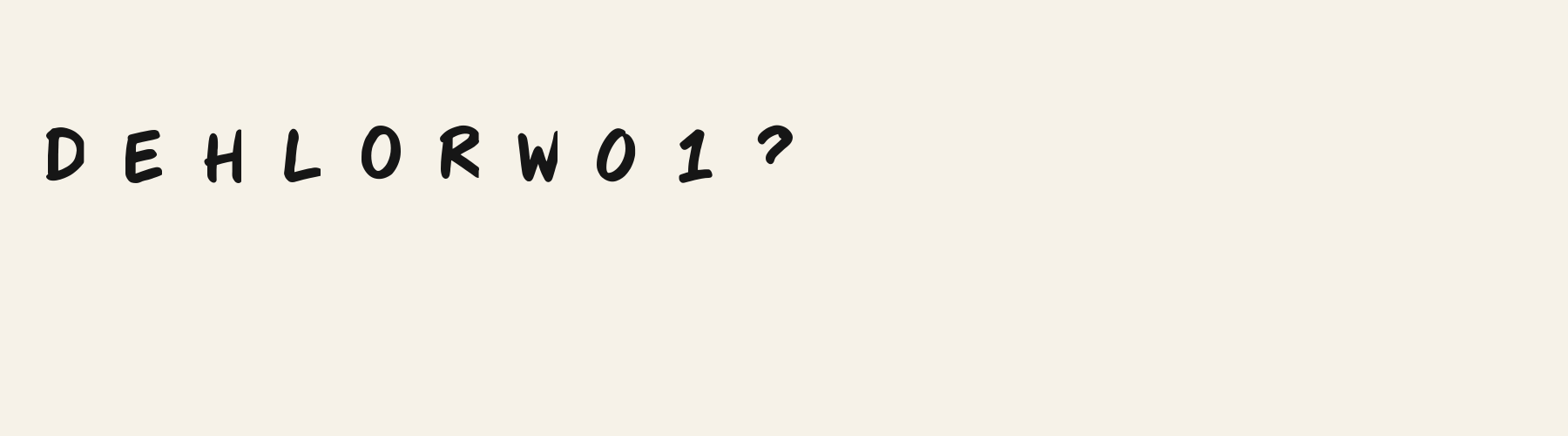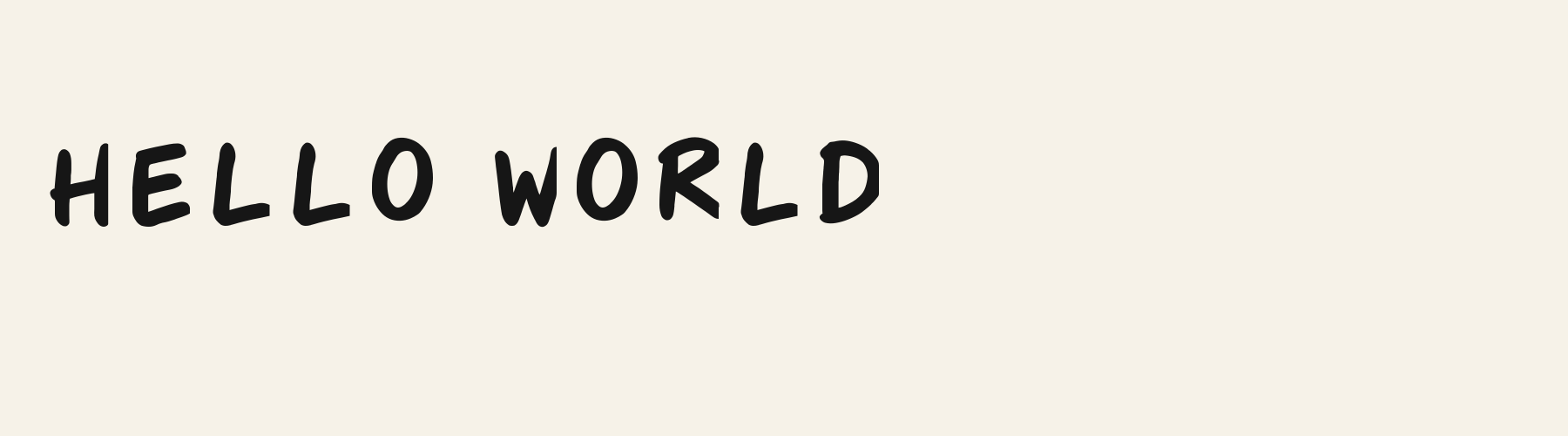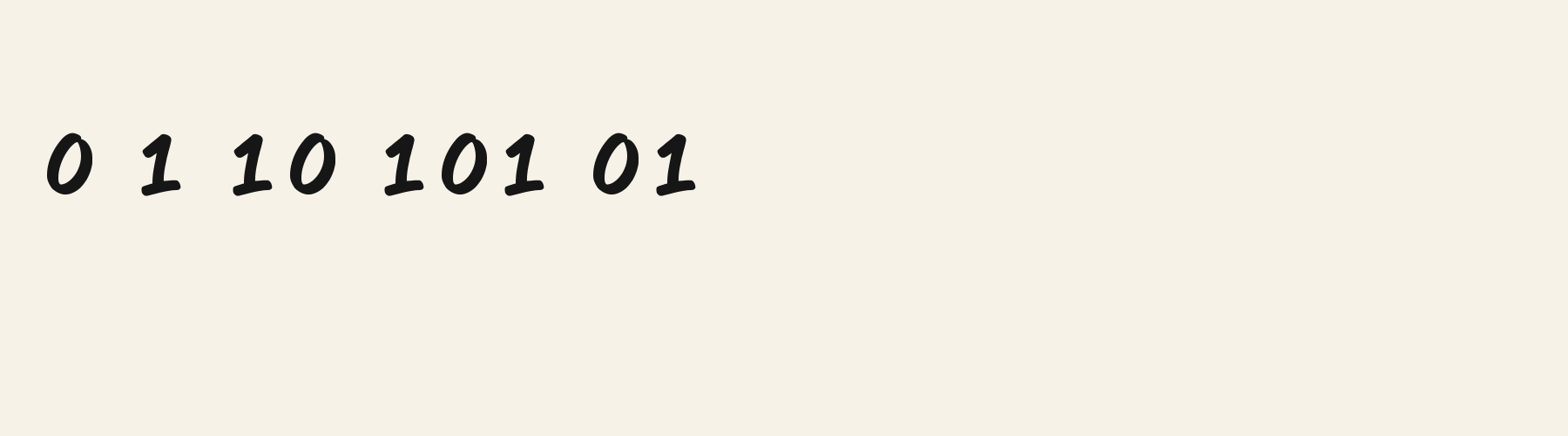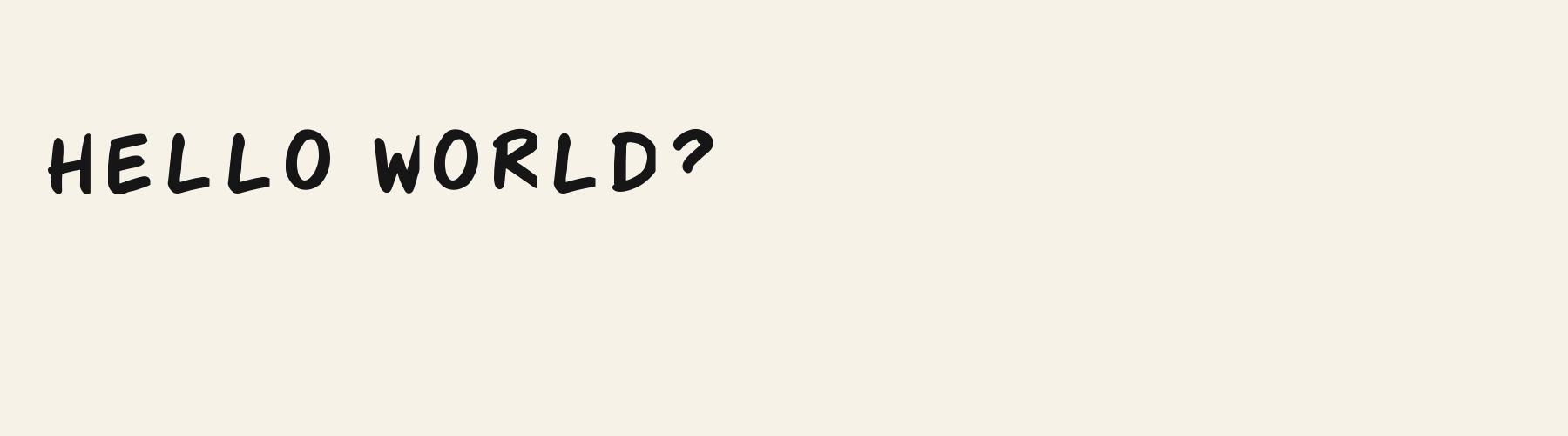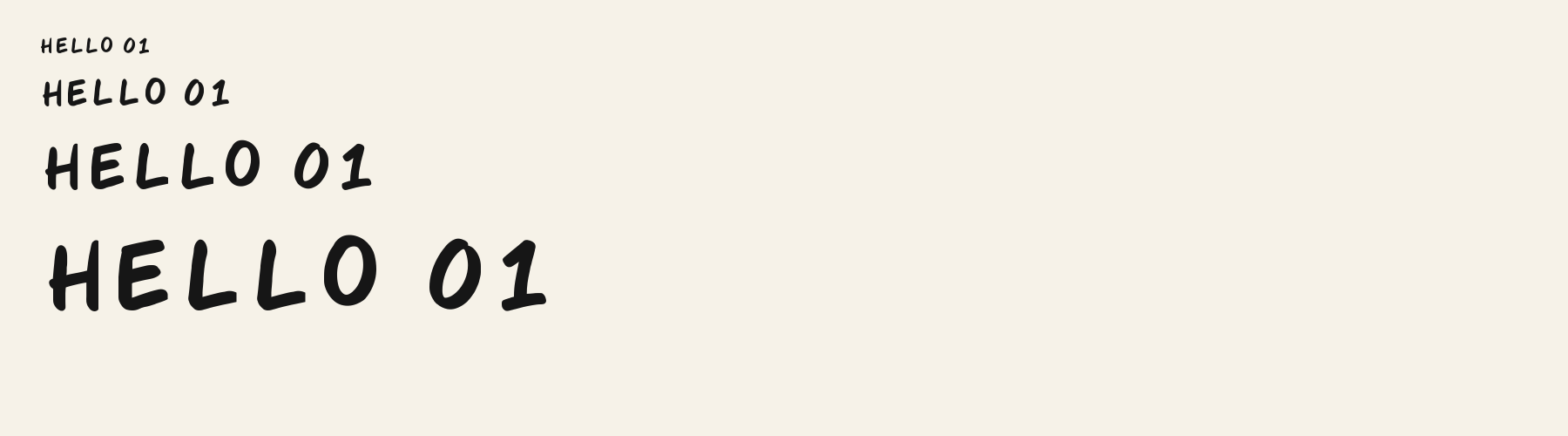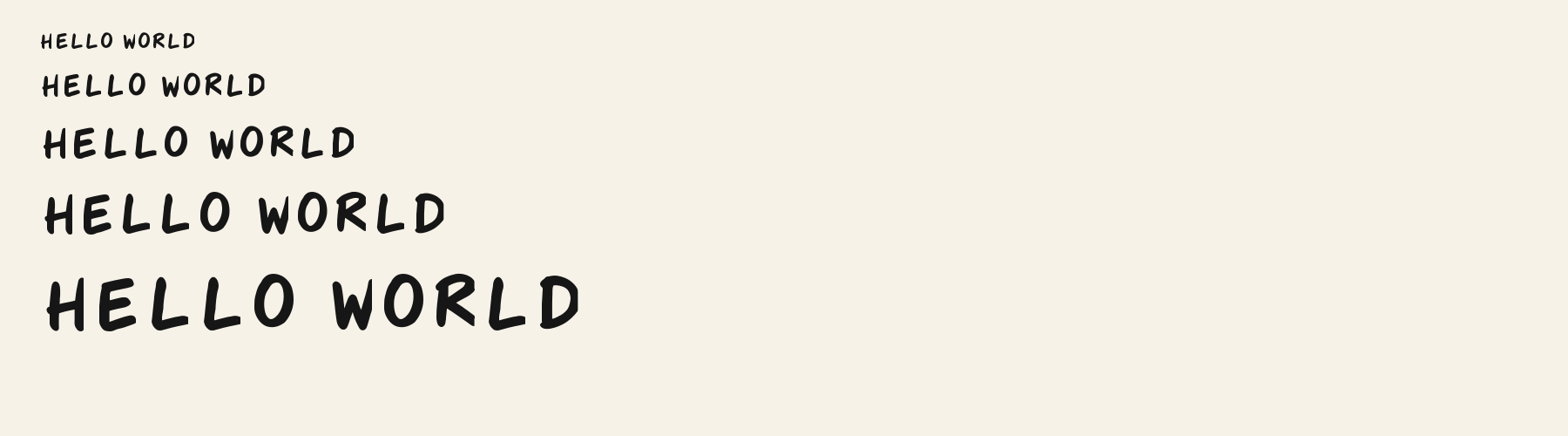
Marker Quick Dark Skipping Print Font
Marker Quick has dark, separate letters with a restless rhythm: stems tip slightly, tops vary, and broad feet sweep upward.
Dark Skipping Print Letterforms
Marker Quick has dark, separate letters with a restless rhythm: stems tip slightly, tops vary, and broad feet sweep upward. The H has a crossbar that climbs toward the right, while the L turns into a long, rising foot. The R combines a compact angular bowl with a decisive diagonal leg. Rounded stroke ends soften these sharper turns, and the O leaves a generous oval opening inside its heavy outline. Repeated letters hold their shape, but uneven heights and changing directions keep a short phrase feeling spontaneous. The result is emphatic, informal lettering with a brisk, slightly impatient mood.
Check repeated L shapes, the angular R, and the space around W in your actual Latin wording. Compare tighter and wider settings before committing. Preview kana separately, since these specimens show Latin lettering; verify accented names through a separate coverage check.
Try this face for a short heading, with a restrained sans serif handling descriptions and labels. Its heavy strokes, rising feet, and uneven tops already provide strong movement, so a companion with steady proportions could give supporting information a calmer rhythm.
Marker Quick: letterforms and layout
Compare the original spacing with a slightly wider setting. The repeated L feet and broad W create an uneven rhythm; extra space can separate those shapes while making the headline noticeably longer.
Marker Quick gives this phrase a slight forward push, rising L feet, and an angular R leg. Its uneven stroke endings suit a headline that feels brisk and personally written.
Speech Comic shows a more upright capital alphabet, with flatter L feet and a rounder R bowl. Its mixed-case specimen also offers a softer conversational texture, useful when that gentler rhythm fits the message.
Social post. Dark strokes and uneven letter heights give a short social announcement an energetic, handwritten presence. OPEN STUDIO
Poster. Broad capitals and open interior spaces suit a spare poster with a short, prominent title. OH HELLO
Sticker. The climbing H crossbar and sweeping L feet give a brief sticker greeting a lively personal tone.
The scenes are illustrations drawn on this page with Marker Quick itself, not client work.
About Marker Quick
Its x-height is 74% of the cap height, near the 73.2% typical of handwriting fonts in the library, taller than 19 of the 29 other handwriting fonts. Ascenders on b, d, h, k and l rise 17.5% above the capitals, and descenders on g, j, p, q and y drop 19.3% of the cap height below the baseline, shallower than 25 of the 29 other handwriting fonts. It sets wide: an average lowercase letter, spacing included, is 86.2% as wide as the capitals are tall (an average capital, 90.2%), 19.1% more than the median for handwriting fonts, so the same words take a longer line. The o is close to a circle, 1.13 times as wide as it is tall, and M is the widest capital, at 1.32 times the width of H. The O stops 5.4% of the cap height short of H and stands 0.4% above the baseline.
The letters lean about 4° to the right, where most handwriting fonts in the library stand upright. Ink covers 44.3% of each lowercase letter's box (its advance width by the cap height), darker than 28 of the 29 other handwriting fonts. Strokes keep nearly one thickness in every direction: the sides and the tops of o and O differ by 10%.
Its 273 characters include 170 Japanese kana and 52 Latin letters, plus 51 figures, punctuation marks and symbols; there are no accented Latin letters beyond A to Z. The word space measures 45.7% of the cap height, and the blank space either side of a lowercase letter takes up 11.6% of its width. The font carries no kerning, so spacing comes from each letter’s own side bearings. The figures have different widths, so columns of numbers set in Marker Quick will not line up exactly.
- Atrium Sans (sans serif), Ion Velvet Grotesk (sans serif) and Keyhole Counter Roman (serif) are drawn on a different letter structure, so Marker Quick can carry the headings while one of them sets the text. Each has its own page with a type tester for trying the pair.
- In the same handwriting style: Inkpot Comic (17% narrower, upright); Brush Ink Taper (26% narrower, lighter strokes); Crayon Print (upright, lighter strokes).